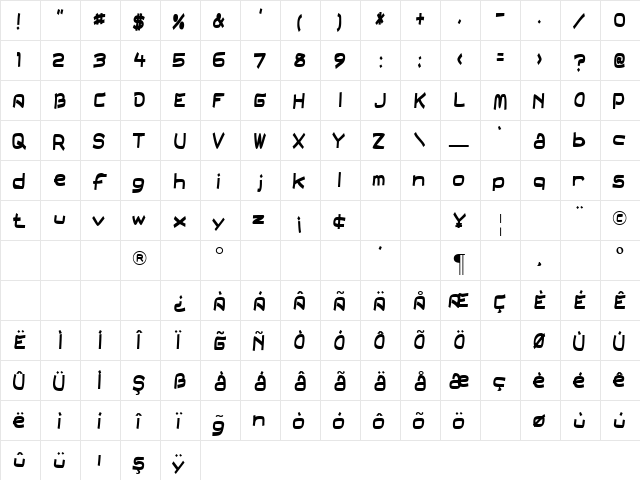
TR Field Day Filter Regular
Design Context for TR Field Day Filter Typeface
TR Field Day Filter is a composed and adaptable typeface that performs quietly and consistently across a wide range of design contexts.